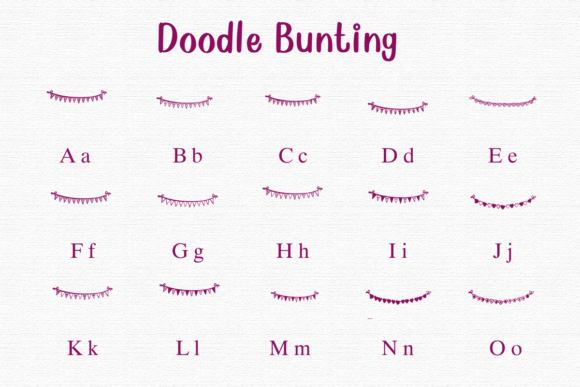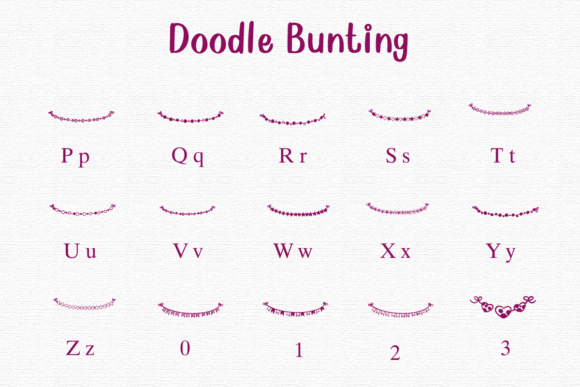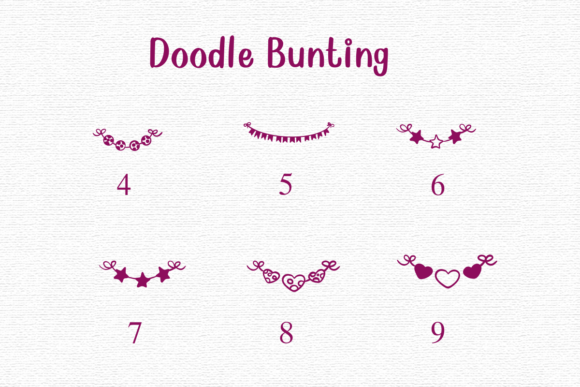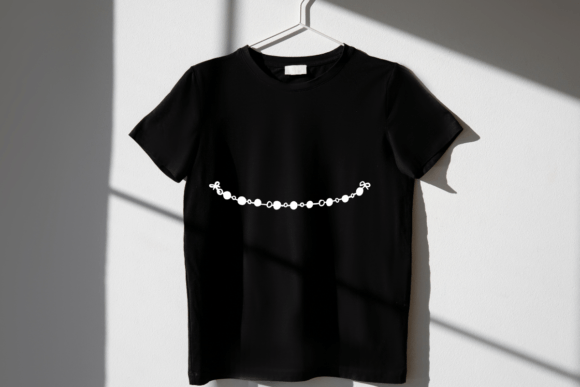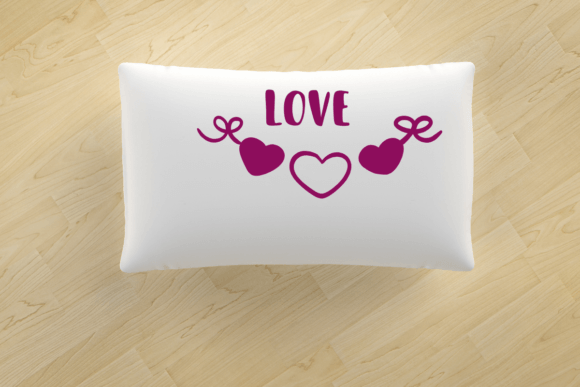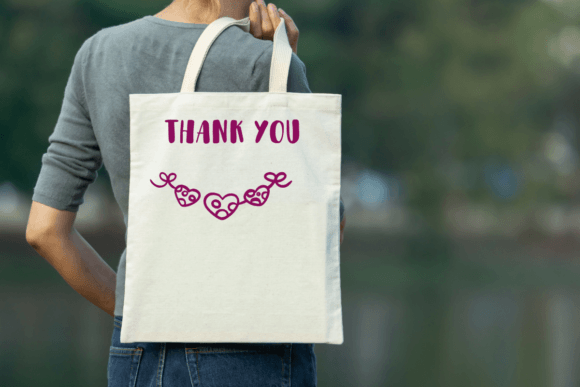
You’re brainstorming ideas for a birthday party invitation or a festive holiday card, and you’re stuck. You want something that captures the excitement and joy of the occasion, but you’re not sure where to start. That’s when the perfect solution comes to mind: a playful font that adds a pop of personality to your design.
Meet the Doodle Bunting Font, a fun and quirky typographic style that looks like hanging party decorations. Instead of letters and numbers, it features cute little doodles of balloons, flags, and stars that add a touch of whimsy to any design. As a designer, you know the importance of choosing the right font to convey the tone and mood of your project. The Doodle Bunting Font is a valuable addition to your toolkit, perfect for adding a playful touch to your designs, especially for parties or celebrations!
Doodle Bunting Font Key Features
- Unique Characteristics: Whimsical, hand-drawn style with a playful feel; ideal for children’s books, party invitations, and other creative projects
Doodle Bunting Font Review
The Doodle Bunting Font is a whimsical, hand-drawn typeface that adds a touch of playfulness to any design. ✨ I love how it captures the essence of hand-drawn illustrations, making it perfect for children’s book covers, party invitations, or any project that requires a carefree vibe. The font is highly customizable, allowing you to adjust the line width, letter spacing, and even the color of the font to fit your design needs. ✨
However, I do have a few concerns with the font. ⚠️ Firstly, the font can be quite dense, making it challenging to read at smaller font sizes. Additionally, the font’s irregularities can sometimes make it difficult to pair with other fonts. ⚠️ Lastly, the font’s design can be a bit overwhelming for more formal or professional projects.
Overall, the Doodle Bunting Font is a delightful addition to any designer’s toolkit. While it may have some limitations, its unique charm and customization options make it a great choice for projects that require a lighthearted and playful tone.
Pros and Cons:
- ✨ Highly customizable
- ✨ Whimsical and playful design
- ✨ Perfect for children’s book covers and party invitations
- ⚠️ Can be dense and difficult to read at smaller font sizes
- ⚠️ Can be challenging to pair with other fonts
- ⚠️ May not be suitable for formal or professional projects
Tips for Getting the Most Out of the Doodle Bunting Font
Experiment with different font sizes, colors, and styles to add visual interest to your design. Use the font to create custom titles, headings, and bullet points. Combine the font with other design elements, such as images and graphics, to add texture and depth to your design.
The Doodle Bunting Font is perfect for creating whimsical and playful designs, such as birthday invitations, baby shower invitations, and wedding invitations. It’s also great for creating custom titles, headings, and bullet points for presentations and reports.